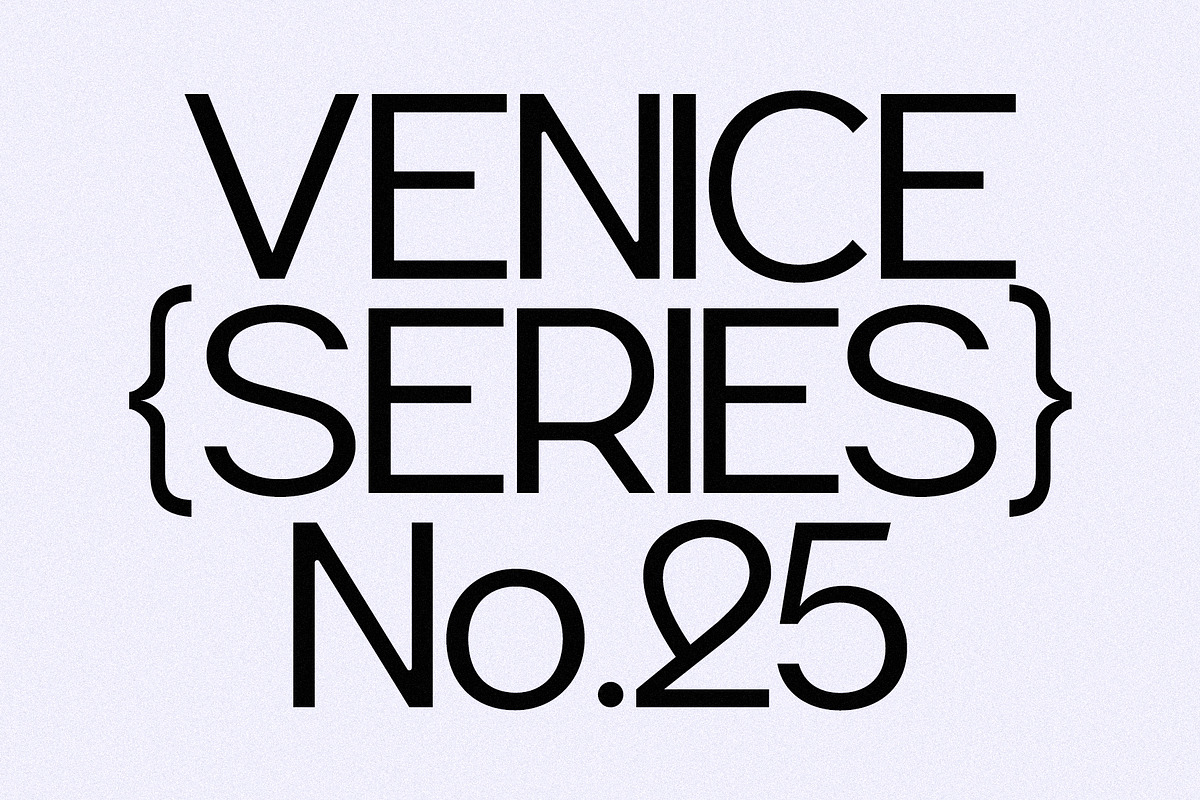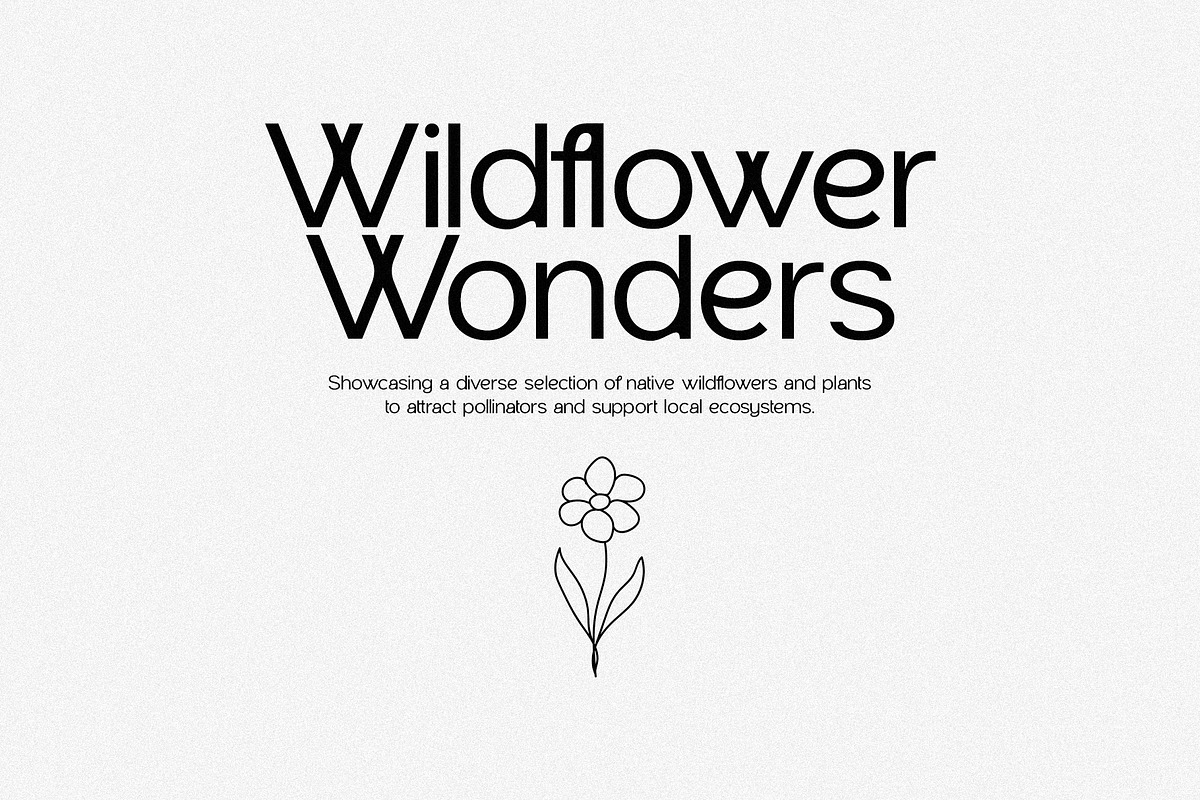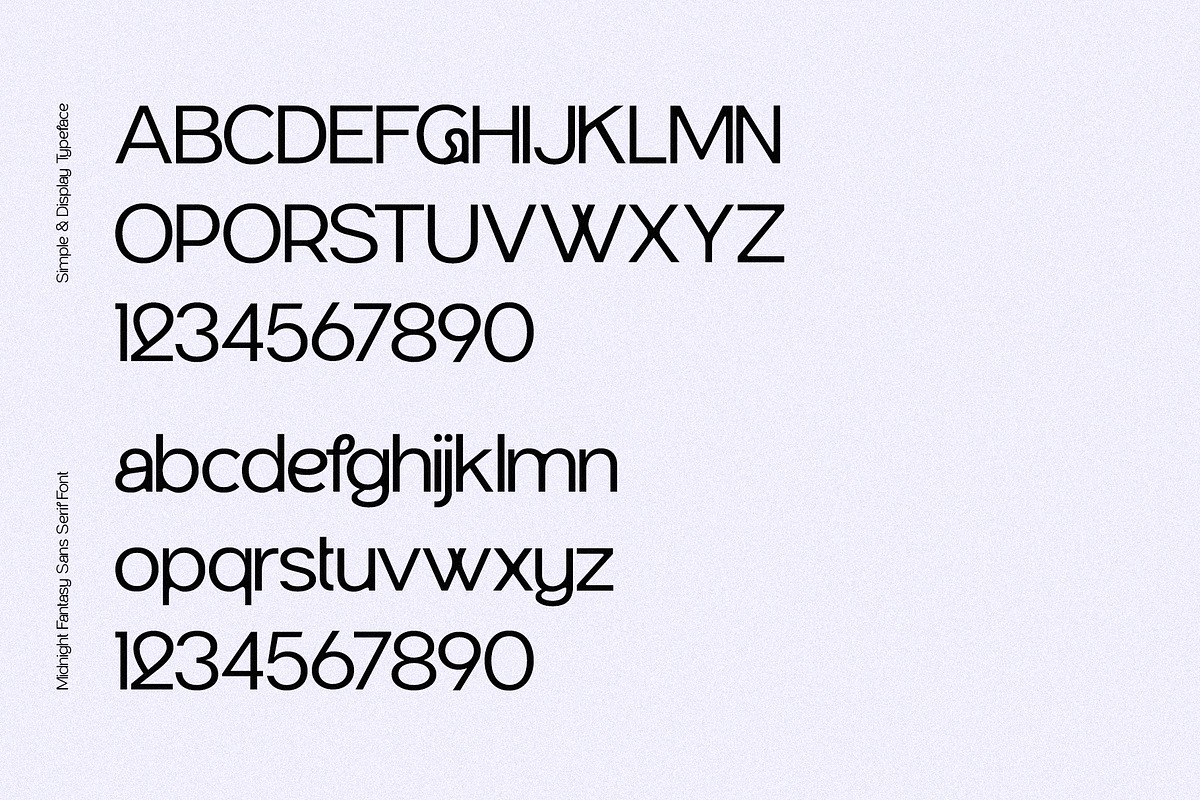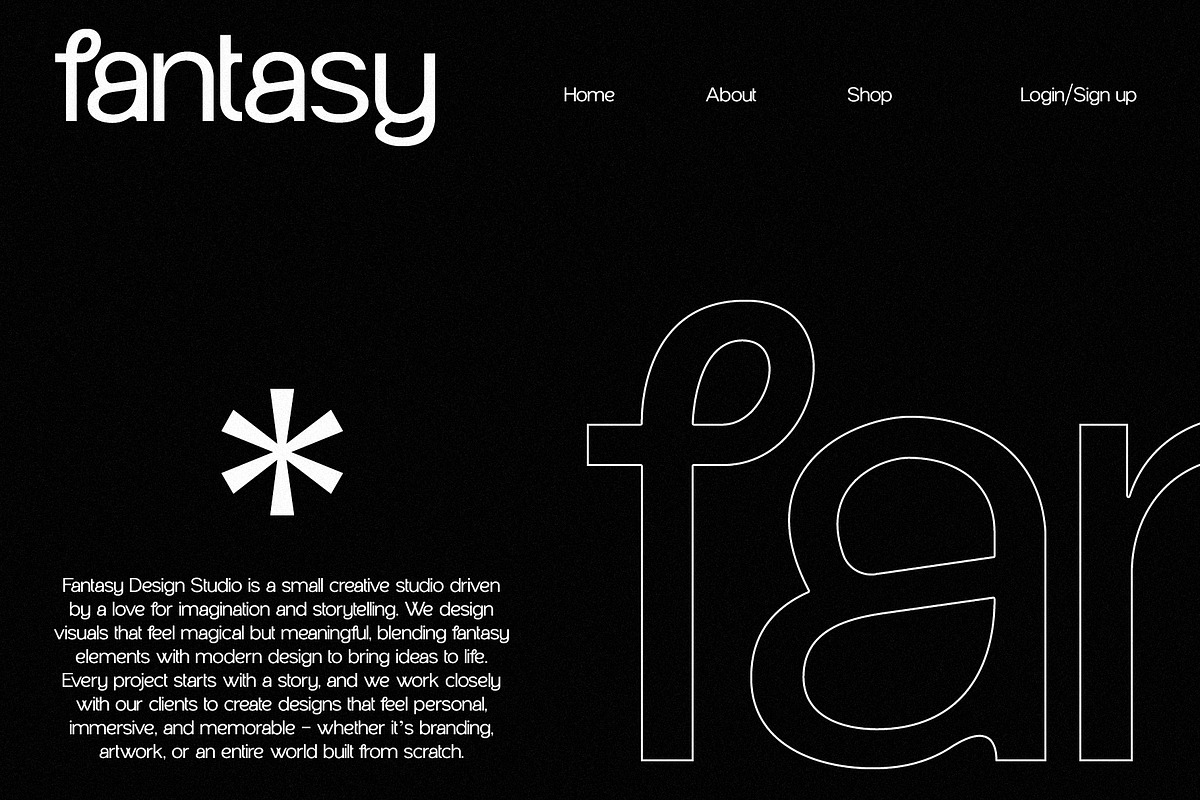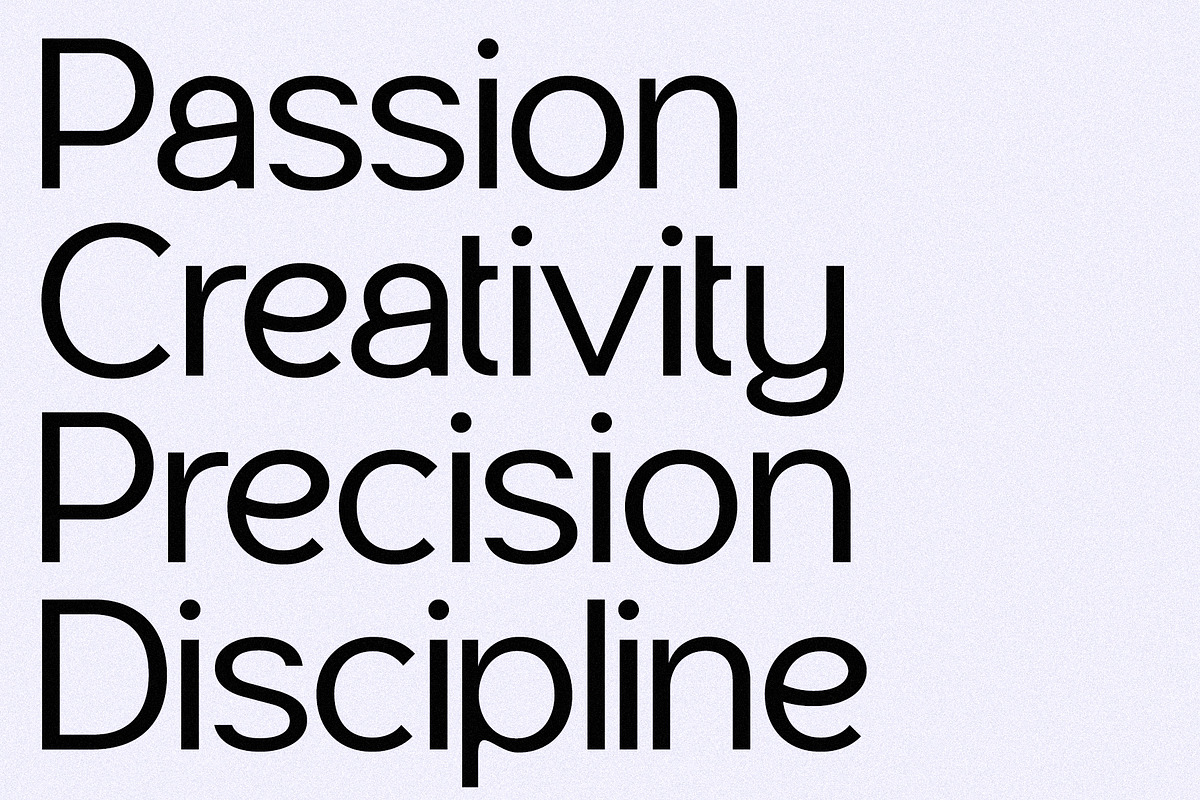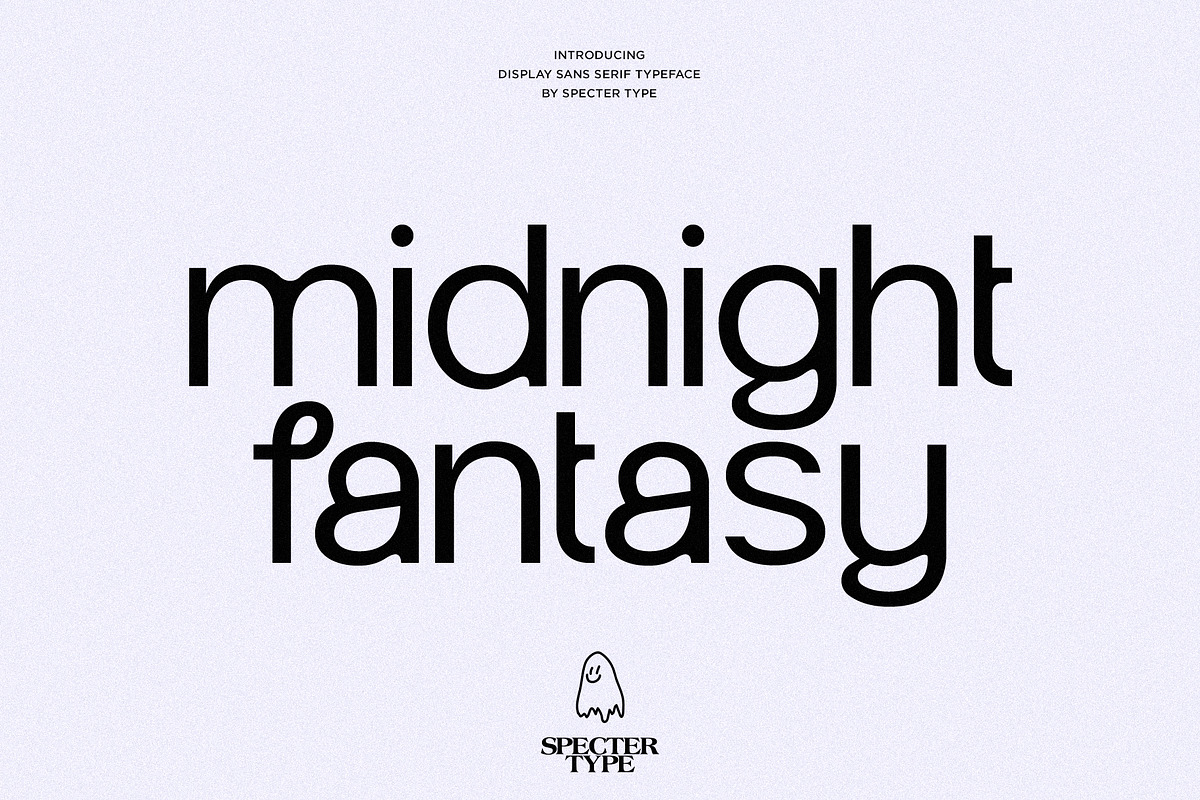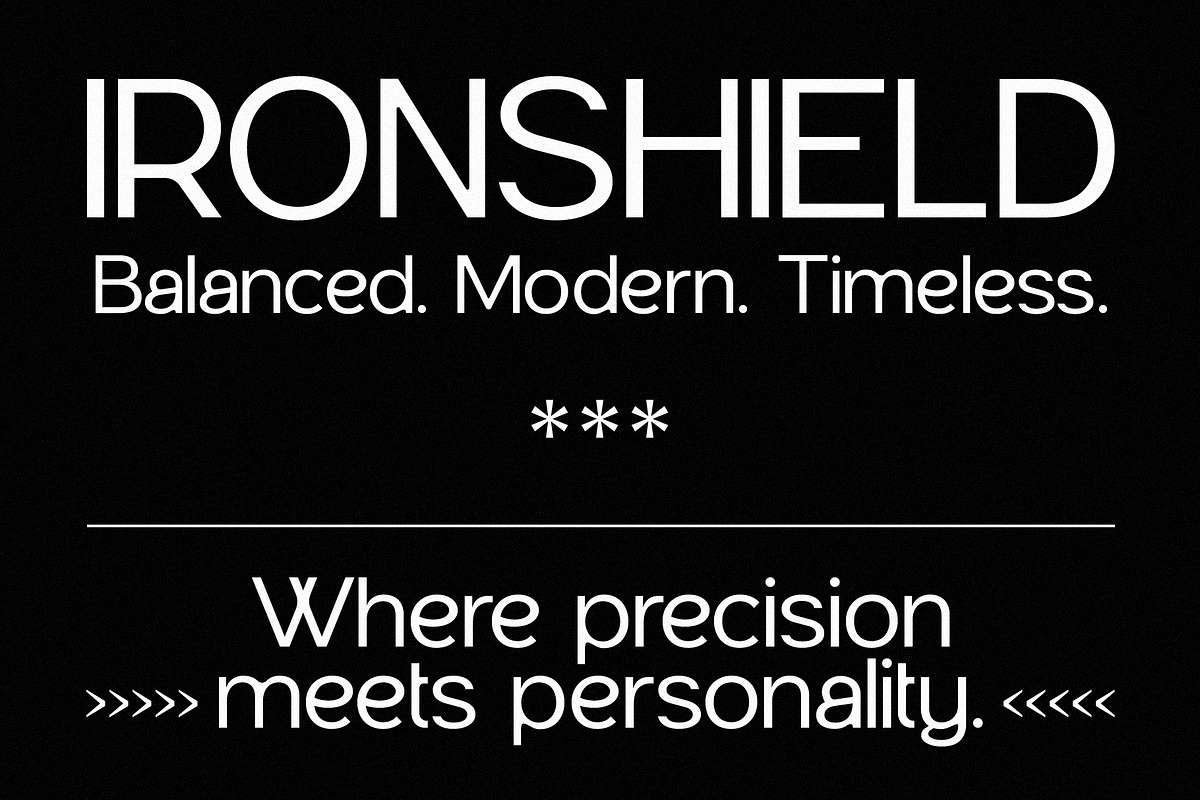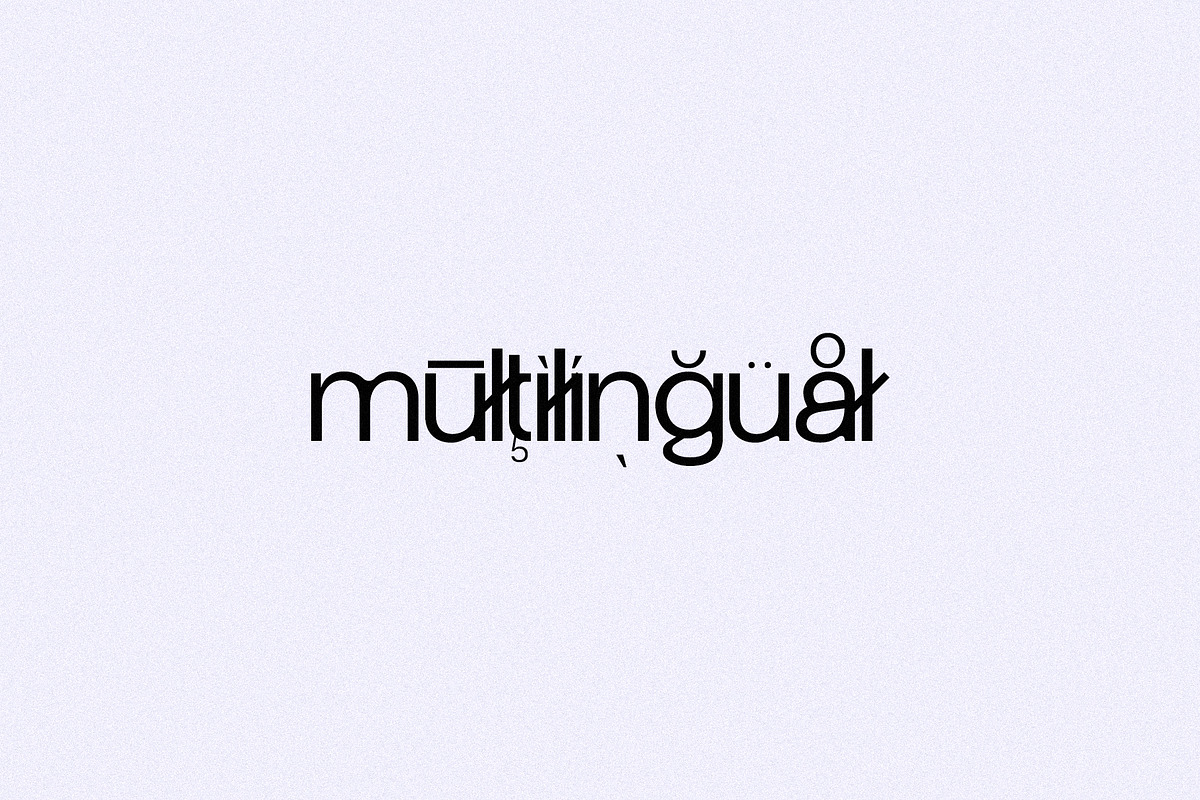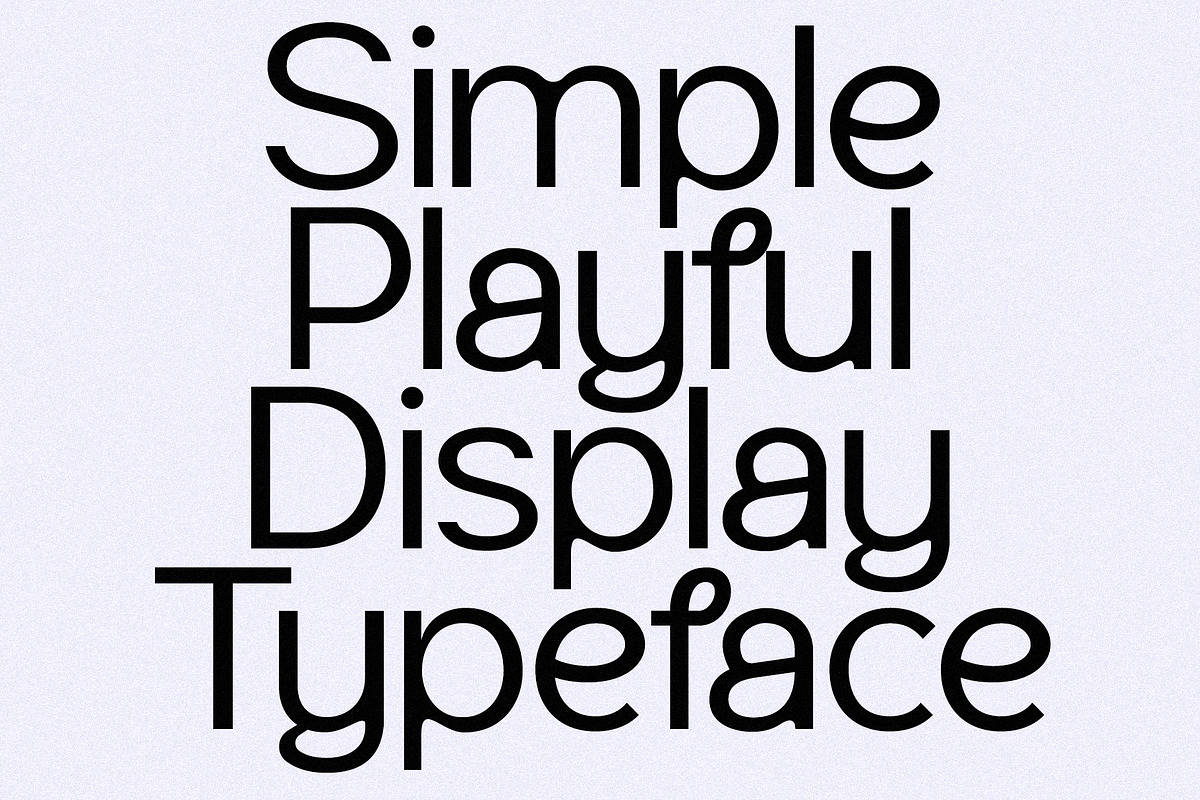
Midnight Fantasy - Unique Sans Serif
Midnight Fantasy - Unique Sans Serif is a modern and clean typeface designed with simplicity and readability in mind. This regular sans serif font features smooth, straight lines and a minimalist style, giving it a sharp, yet approachable look. Its straightforward design makes it perfect for a wide range of applications, from branding and websites to posters and print materials. Whether you’re working on a creative project or a more professional design, Midnight Fantasy delivers a fresh, contemporary aesthetic that feels both fresh and timeless.
Midnight Fantasy features uppercase & lowercase letters, numbers & symbols, multilingual support, over 300+ glyphs.